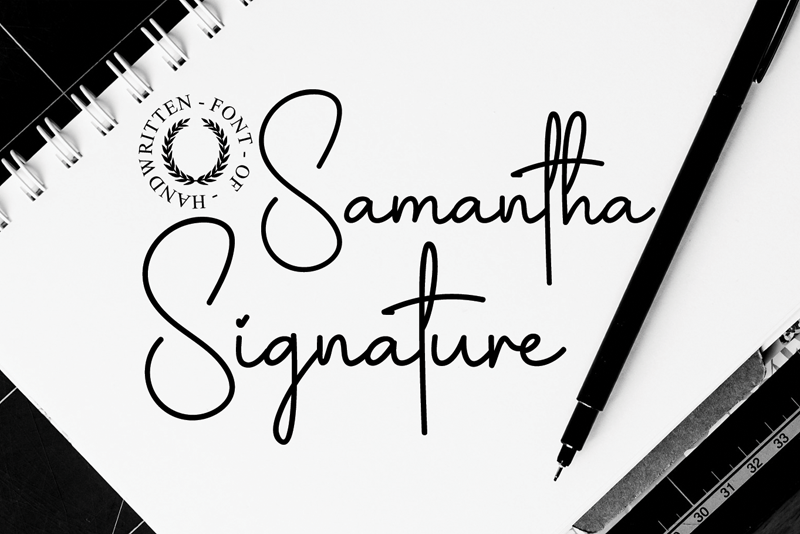
Font name: | Samantha Signature |
Author: | Behind the Ink |
Note by Behind the Ink | |
Samantha Signature is an exquisite handwritten font, masterfully designed to become a true favorite. It maintains its classy calligraphic influences while feeling contemporary and fresh. Attention : Samantha Signature handwriting Font is prohibited to use this font for commercial purposes or for profit without the permission of the author/admin, without being known to use this font without permission, will be subject to sanctions 5x the specified price. This font is used only for demos (Demo license) If you want to use this font for commercial use please contact email: luluksurotul123@gmail.com or click the link below: https://www.creativefabrica.com/product/samantha-signature/ref/698281/ If you want to see more other fonts, please click: https://www.creativefabrica.com/designer/behind-the-ink/ref/698281/ Any donations are very appreciated. Paypal account for donation: https://www.paypal.com/paypalme/luluk783 thanks. |